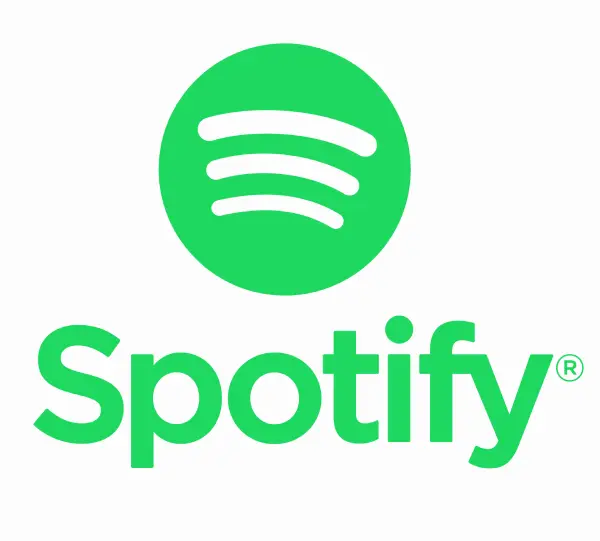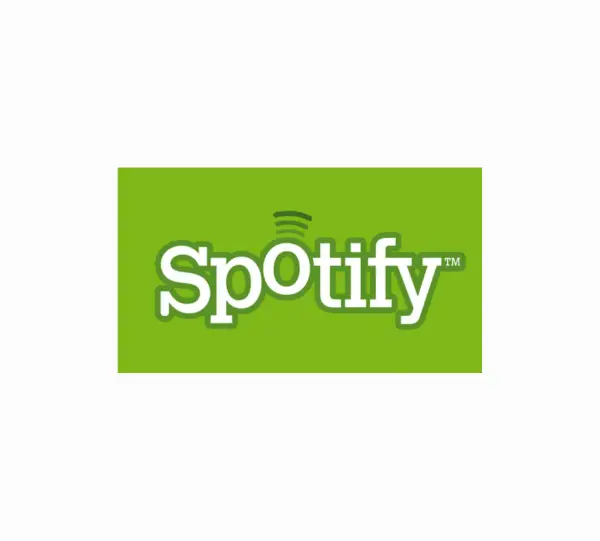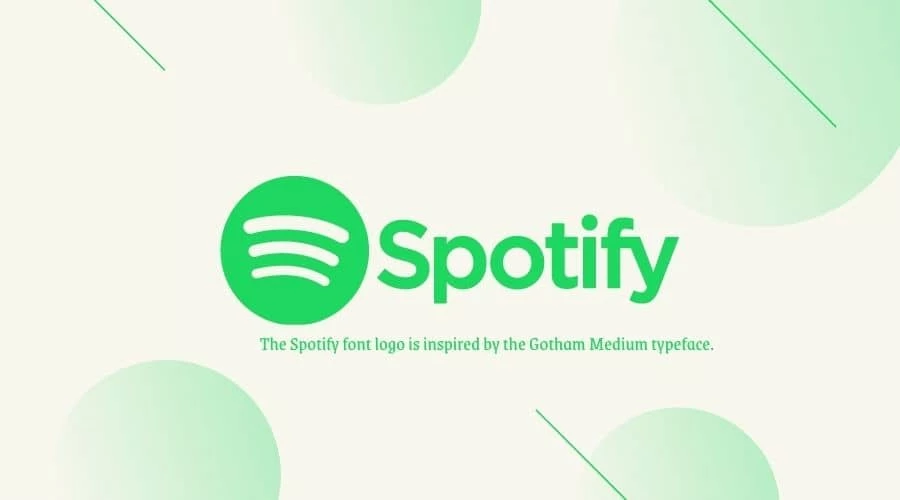
Spotify font comes from the logo lettering of Spotify’s app. The Spotify logo has undergone several changes since the company’s inception. Spotify was founded on April 23, 2006, in Stockholm, Sweden, by Martin Lorentzon and Daniel Ek.
What is Spotify font?
Spotify uses a custom typeface called Circular, which is a geometric sans-serif font created by Swiss designer Laurenz Brunner and released in 2013. The font family consists of eight weights and is known for its clean and modern appearance.
The logo has also been associated with the Gotham font family, with some sources suggesting that the Spotify logo was designed using Gotham Medium with minor modifications, such as the dot on the “i”. However, the most accurate representation of the font used by Spotify is the Circular font, which has become synonymous with the brand’s visual identity.
The updated Spotify logo is a significant change from the old one. The old logo was handwritten, similar to the “Faizer Outline” font.
In summary, the Spotify logo has evolved from a playful and fun design to a more modern and simplified emblem that reflects the brand’s growth and success in the music streaming industry. The Circular font used in the logo contributes to Spotify’s sleek and contemporary image